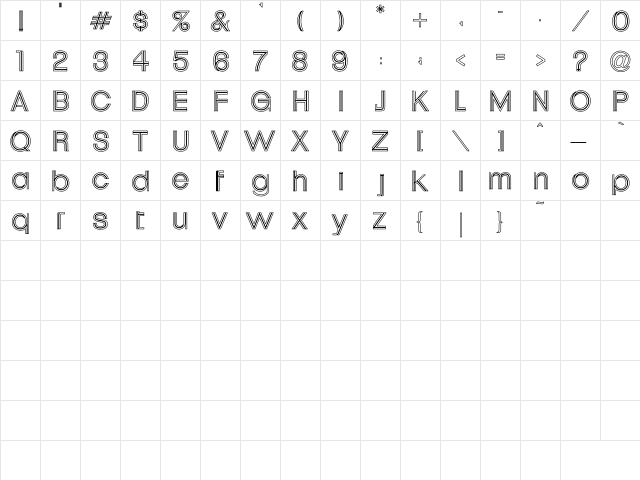
Uptight Hollow Regular
Design Context for Uptight Hollow Typeface
Uptight Hollow offers clean, dependable letterforms without strong stylistic allegiance, making it a practical choice for designers who need flexibility.